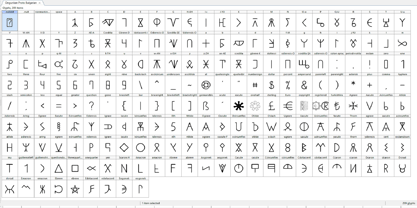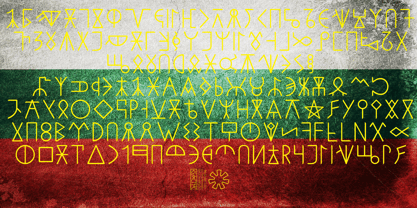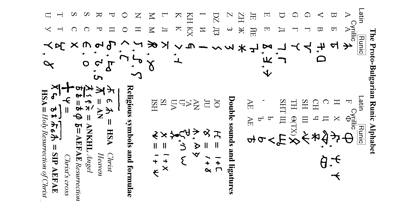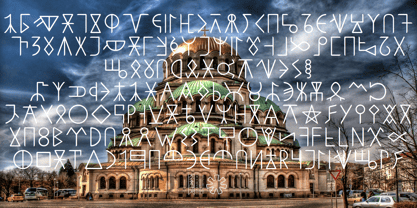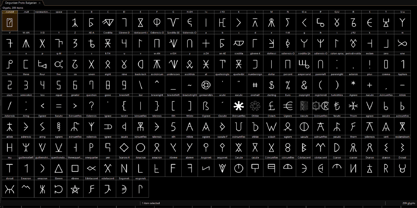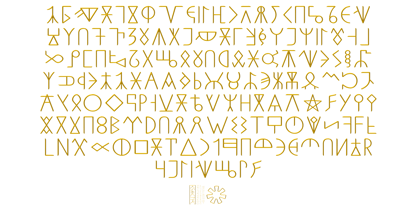
Ongunkan Old Bulgarian Runen Sc
by Runic World Tamgacı
The Ongunkan Old Bulgarian Runen Sc Font Family was designed by Osman Nuri ALKAN and published by Runic World Tamgacı. Ongunkan Old Bulgarian Runen Sc contains 1 styles. More about this family
This font was created for Proto-Bulgarian runic script and is presented as a whole based on the available data. It is built on Latin characters and is not a Unicode-based font. The user can access the letter order in the q-character. For other characters, you can add them by selecting the font from the "Add Symbol" section. If Unicode codes are accepted for Proto-Bulgarian script in the future, I will prepare and present the Unicode font here as well. Enjoy using it.